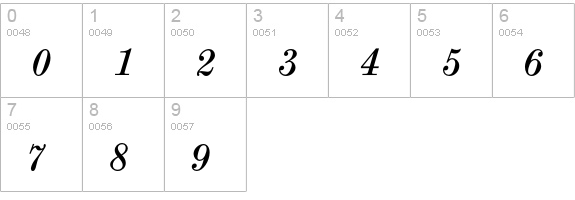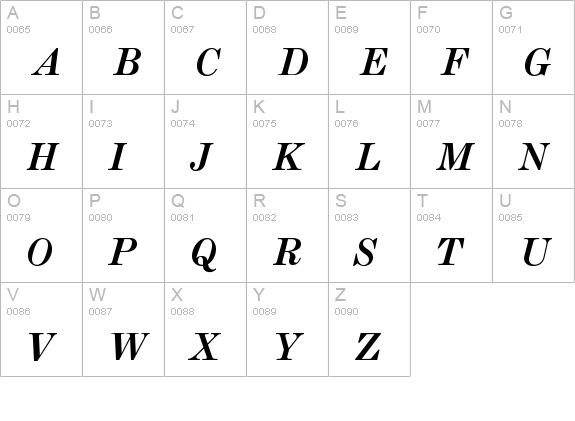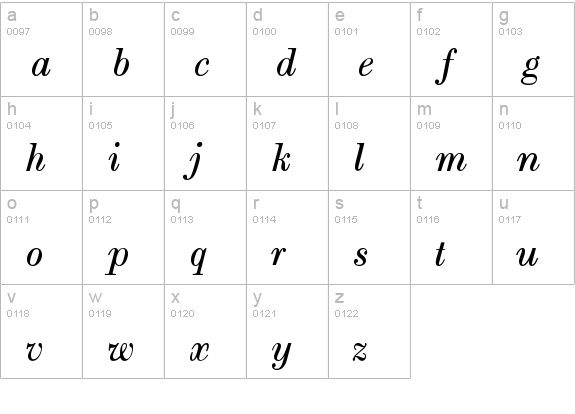
Miller-text-Italic is a distinctive, italic variant in the Miller typeface family \xE2\x80\x94 well suited to design and typography projects.
Miller-text-Italic font is a sophisticated and elegant typeface designed for adding a touch of class to your projects. Its italic style exudes a sense of refinement and modernity, making it perfect for use in a variety of design applications. With its clean lines and subtle curves, Miller-text-Italic font brings a sense of sophistication to any text it graces. This versatile font is ideal for use in branding, editorial design, packaging, and more. Whether you're looking to create a professional logo, elegant invitations, or sleek business cards, Miller-text-Italic font has you covered. Best of all, Miller-text-Italic font is free to download at FontsMarket.com. This means you can easily access this stylish typeface without any cost, making it a valuable addition to your font collection. Don't miss out on the opportunity to elevate your designs with the timeless appeal of Miller-text-Italic font. Download it today and start creating stunning projects with ease.